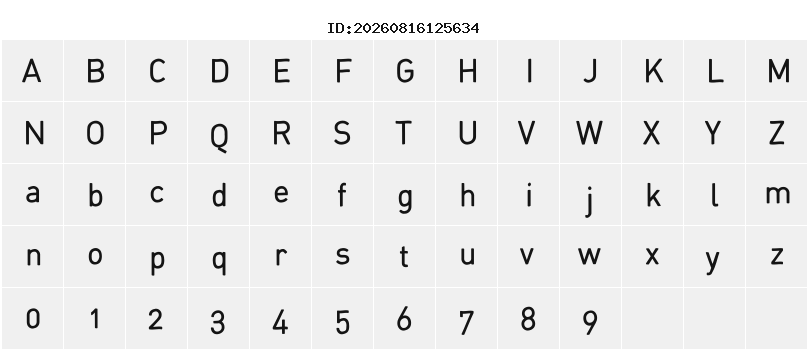
StDinah Preview
About StDinah.ttf
StDinah.ttf is a modern, elegant sans-serif font designed for ultimate readability and visual harmony. Perfect for branding, headlines, web design, and print materials.